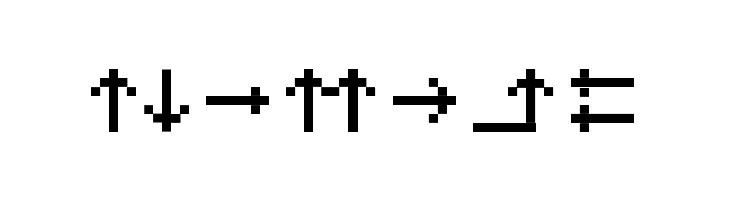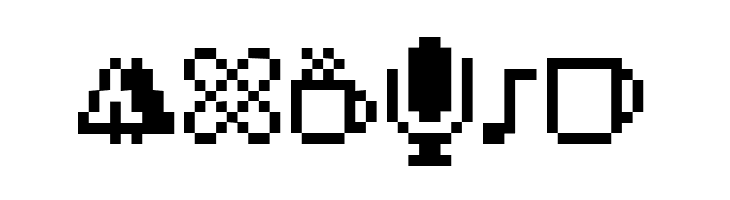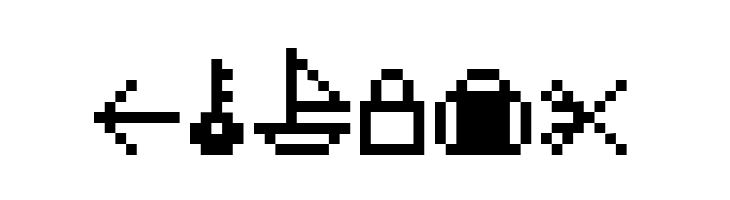
marganbetan Regular Font
- Font: marganbetan Regular
( Fonts by Bartek Nowak - www.nowak.tv/fontoholic/ )
A pixelated, decorative font featuring arrows and geometric shapes.